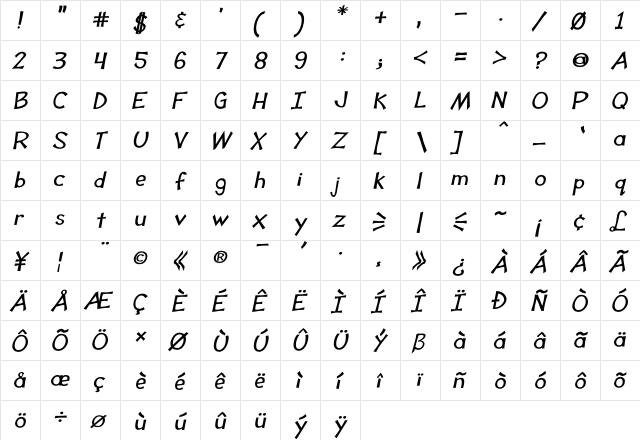
Tooney Loons Bold Italic
| Foundry | Jason L. Arthur |
| Designer | Jason Arthur |
Design Context for Tooney Loons Typeface
Tooney Loons is a composed and adaptable typeface that performs quietly and consistently across a wide range of design contexts. The slanted form adds forward momentum and visual energy. The heavy weight commands attention and anchors typographic hierarchies.
Pro Tip: Try Tooney Loons for annotation and caption copy alongside an upright companion — the contrast in angle creates a dynamic but ordered typographic system.